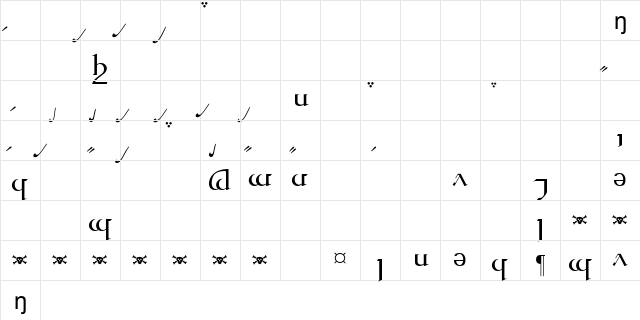
Tengwar Quenya-A Regular
Tengwar Quenya-A is a composed and adaptable typeface that performs quietly and consistently across a wide range of design contexts.